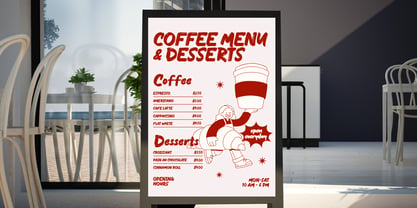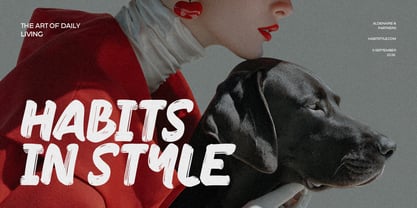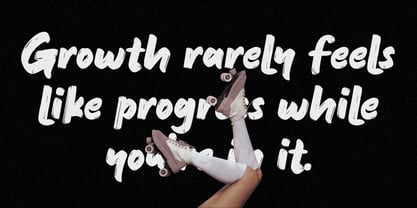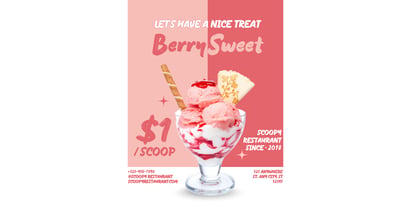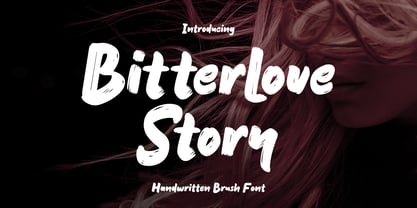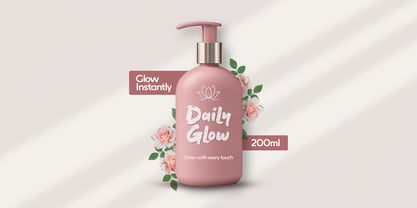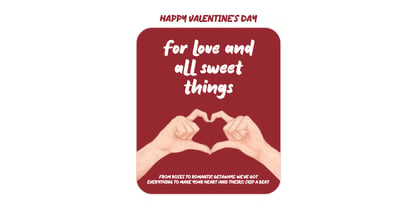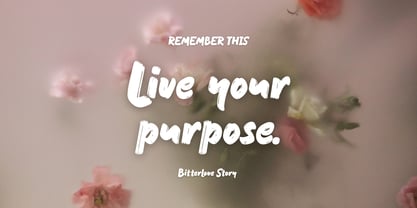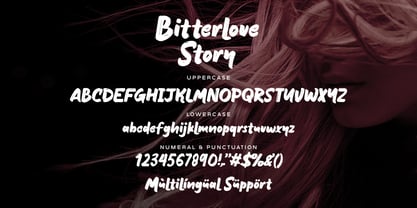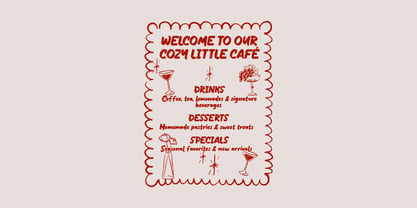
Bitterlove Story
by Fikryal
The Bitterlove Story Font Family was designed by Muhammad Fikry and published by Fikryal. Bitterlove Story contains 1 styles. More about this family
Bitterlove Story is a bold and expressive handwritten brush font crafted to capture raw emotion, romance, and intensity. Inspired by imperfect love stories, this font blends rough brush strokes with natural handwritten flow, creating a powerful visual impact that feels personal, dramatic, and authentic. Designed to stand out, Bitterlove Story is perfect for designs that need strong emotion and character. Its organic brush texture delivers a handcrafted feel, making every word look alive and full of story. This font works beautifully for branding projects, album covers, posters, apparel, quotes, social media graphics, book covers, wedding designs, and expressive typography layouts. Whether you’re creating something romantic, moody, or rebellious, Bitterlove Story brings soul and attitude to your work. Bitterlove Story is easy to use and fully compatible with popular design software, making it a versatile choice for both digital and print projects. Features Handwritten brush style Bold, expressive, and emotional character Natural brush texture for authentic handmade feel Uppercase & lowercase characters Numerals & punctuation Works for digital & print use Best Used For Branding & logo design Posters & headlines Album & book covers Apparel & merchandise Social media content Quotes & typography art Wedding & love-themed designs If you have any questions please don’t hesitate to contact me. follow my Instagram: fkryall Thank you 🙂
Designers: Muhammad Fikry
Foundry: Fikryal